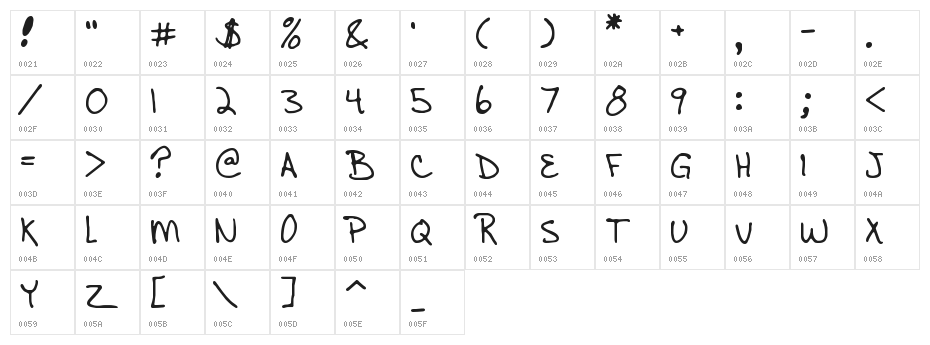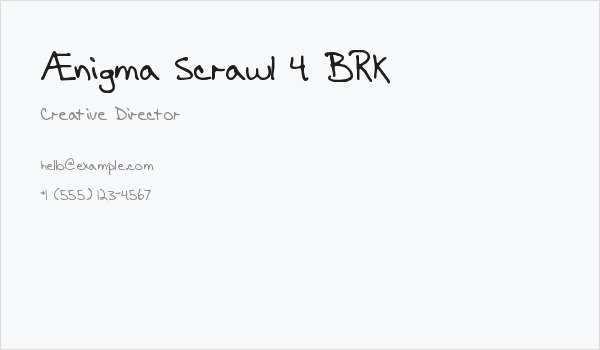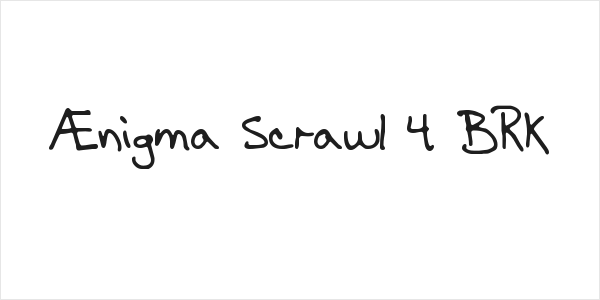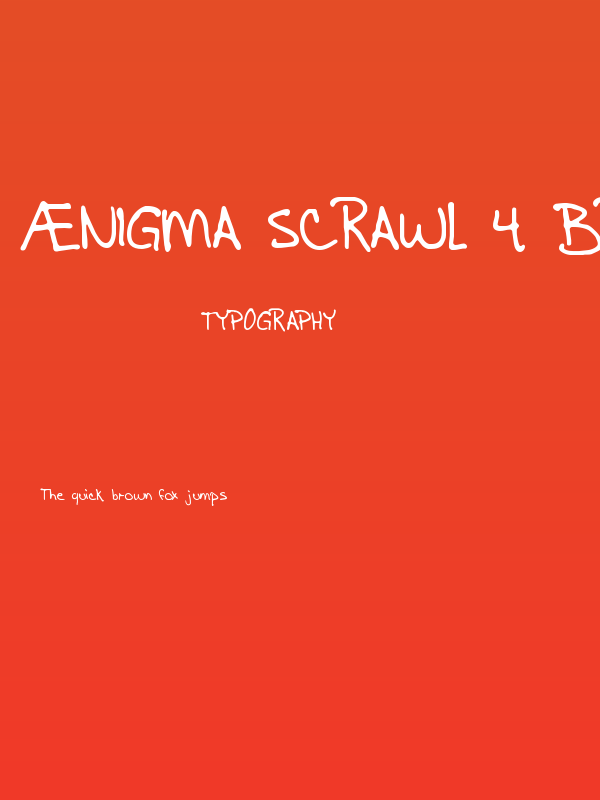
Ænigma Scrawl 4 BRK Font
Ænigma Scrawl 4 BRK Description
This font features a playful and informal handwritten style, characterized by its irregular and slightly wobbly strokes. The letters are bold and have a casual, almost childlike appearance, with varying stroke thickness that adds to its charm. The uppercase and lowercase letters maintain a consistent style, with rounded edges and a slightly uneven baseline, giving it a dynamic and lively feel. The numerals and special characters follow the same whimsical design, making it suitable for projects that require a fun and approachable aesthetic.
| Proposed Projects | Ideal for children's books, playful branding, casual invitations, and creative posters. |